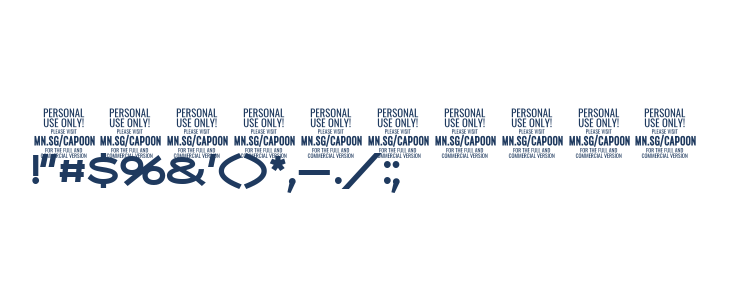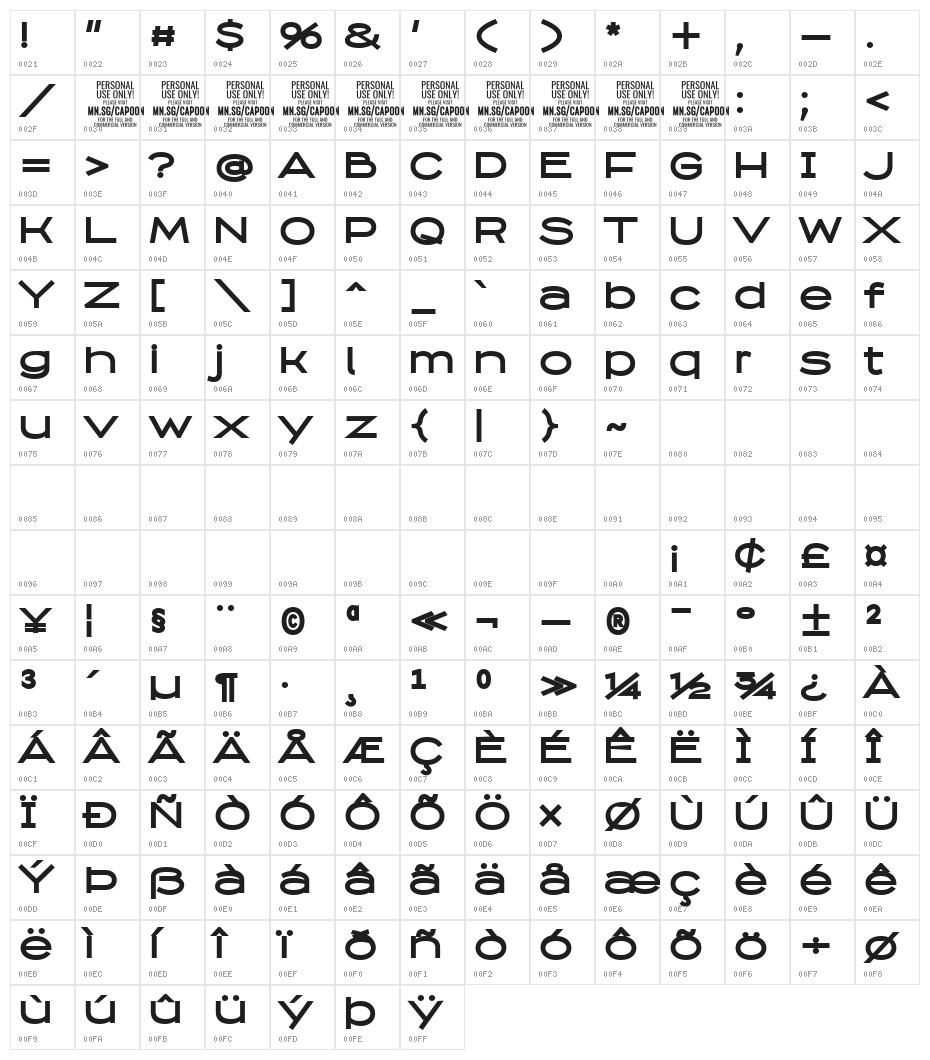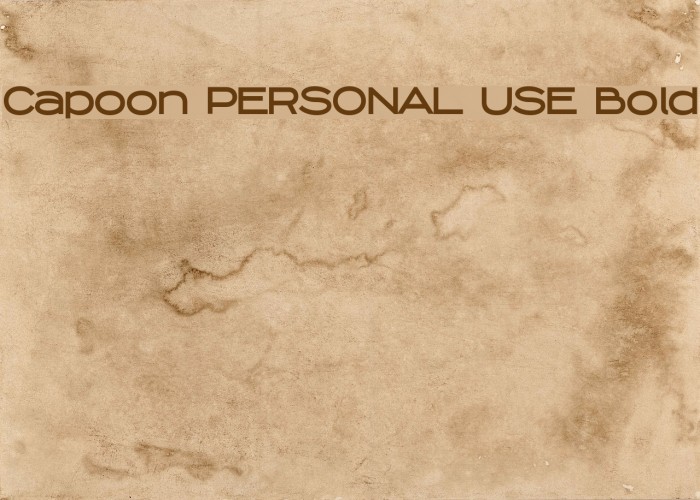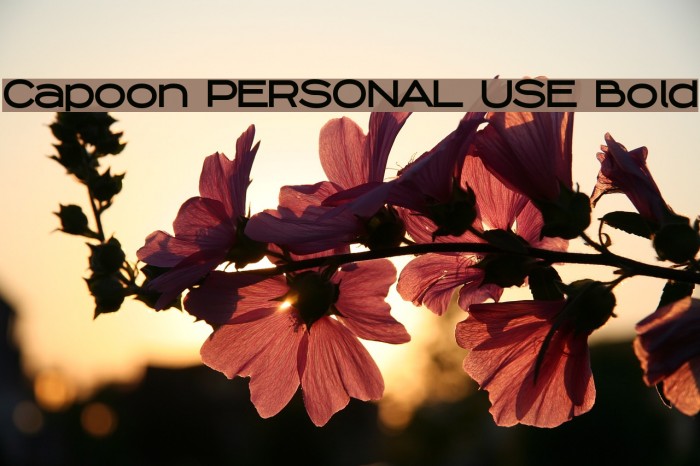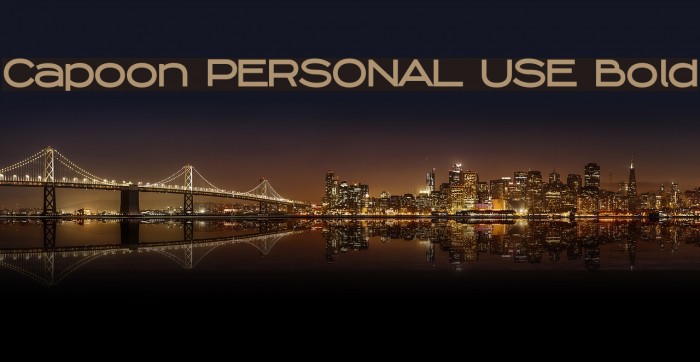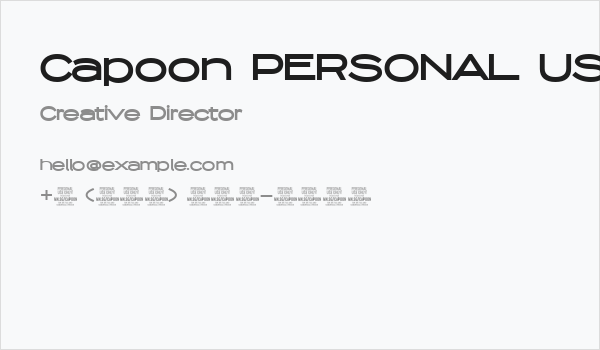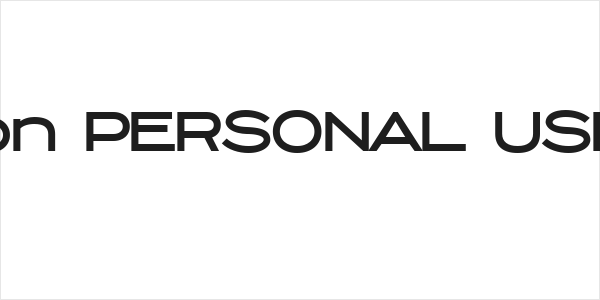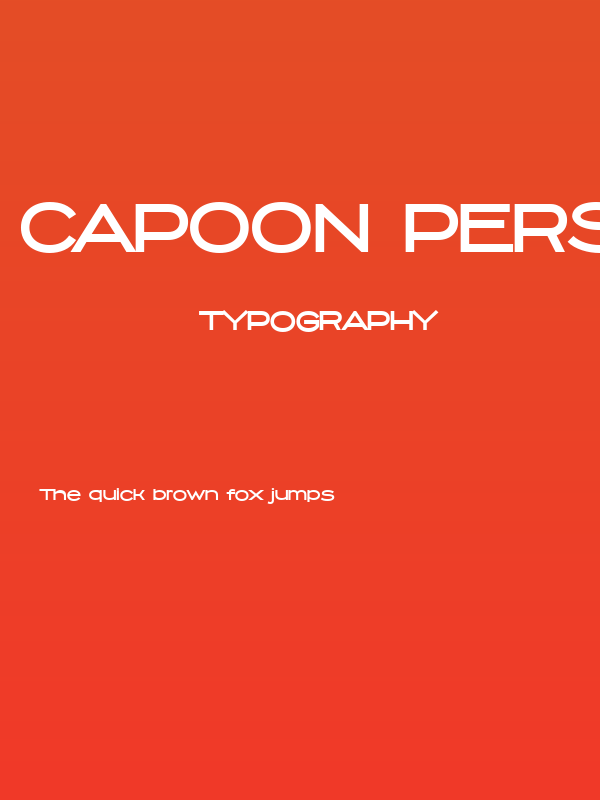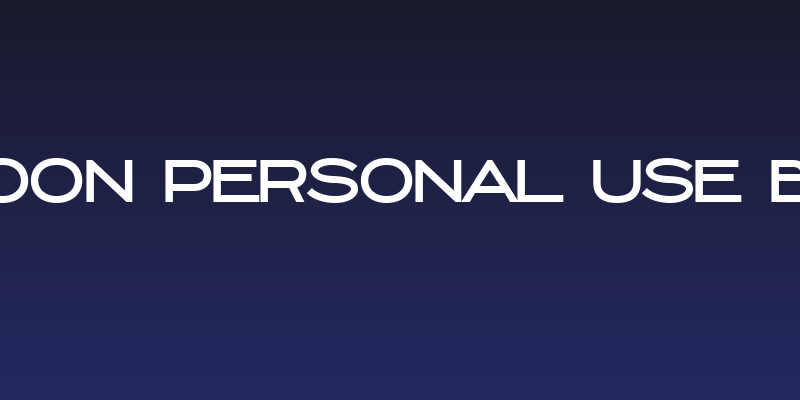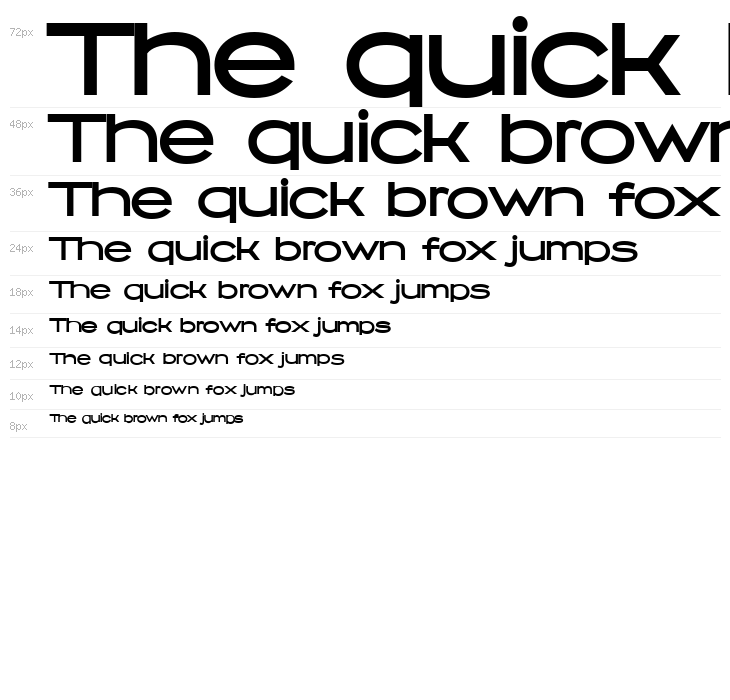
Capoon PERSONAL USE Bold Font
Capoon PERSONAL USE Bold Description
This font features a bold and modern design with clean, geometric lines. The uppercase letters are characterized by their sharp angles and uniform height, giving a sense of stability and strength. The lowercase letters maintain a consistent roundness, providing a smooth and approachable feel. The numerals and special characters are designed to match the overall aesthetic, ensuring a cohesive look across all text. This font's bold weight and distinct style make it suitable for attention-grabbing headlines and impactful designs.
| Proposed Projects | Ideal for branding, advertising, posters, and any project requiring a strong visual impact. |